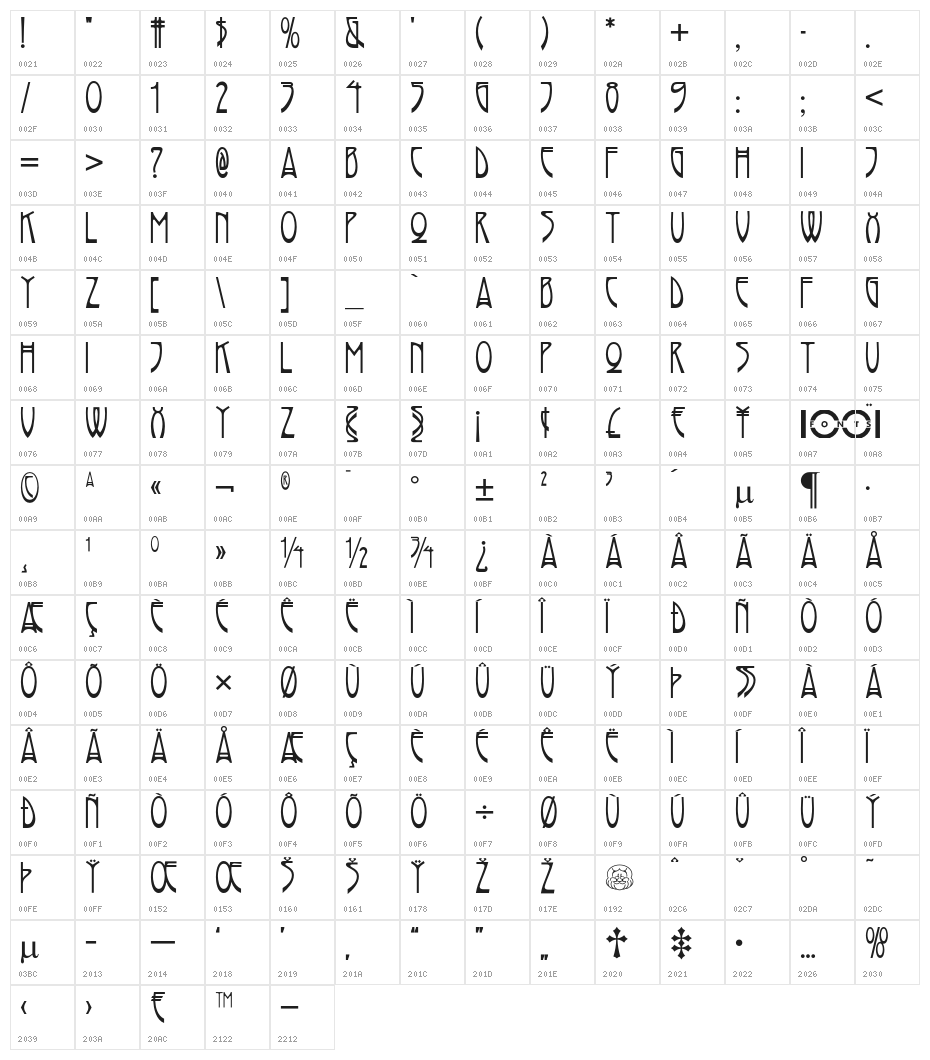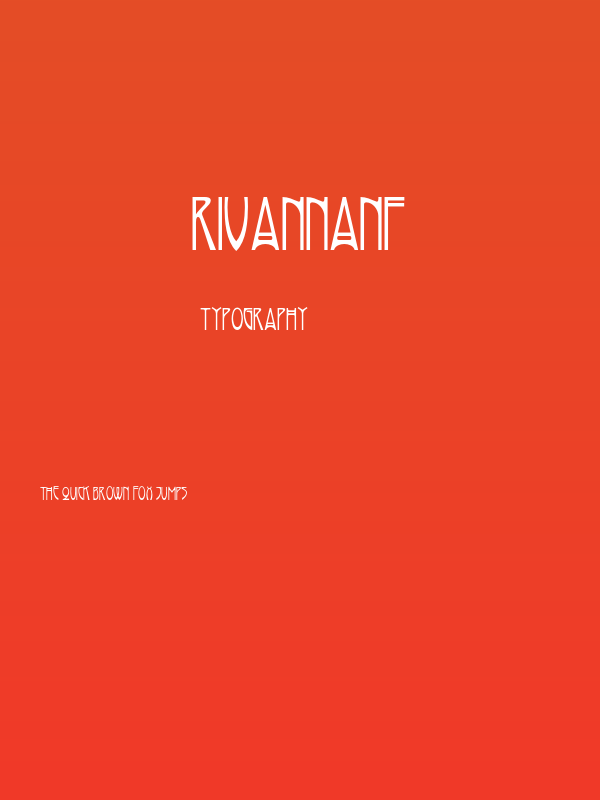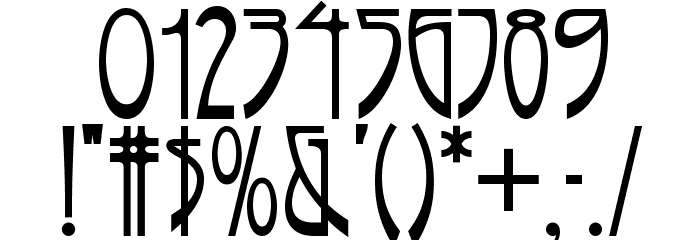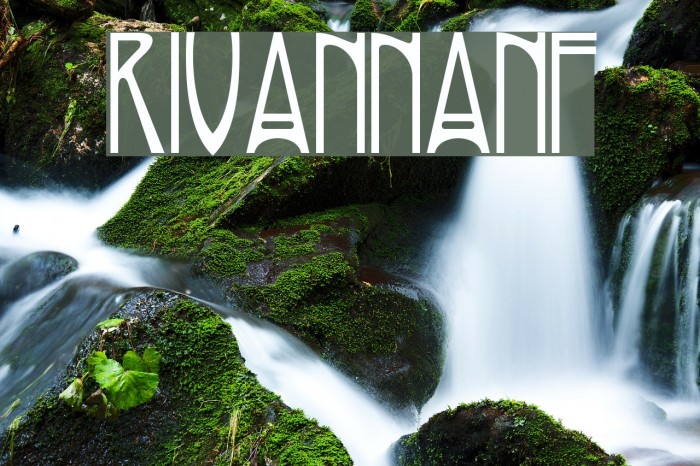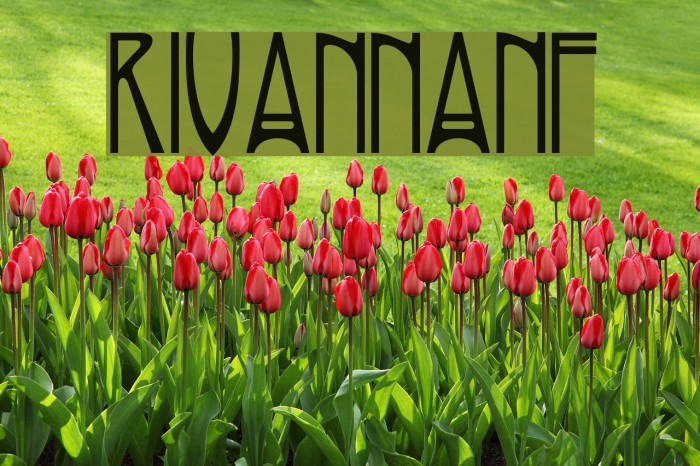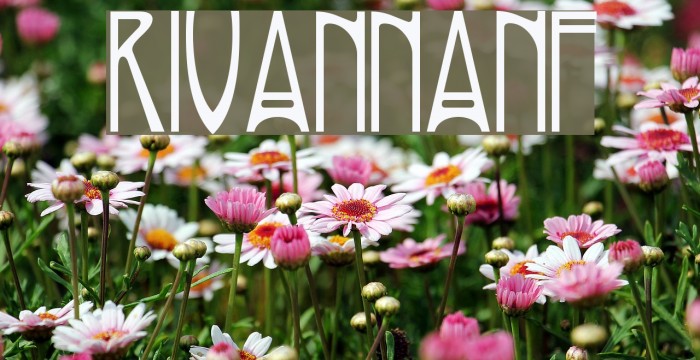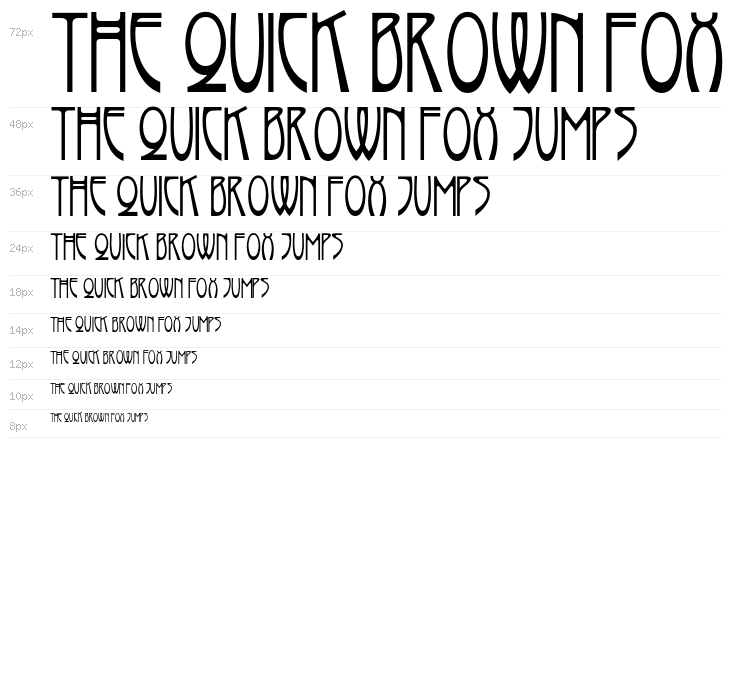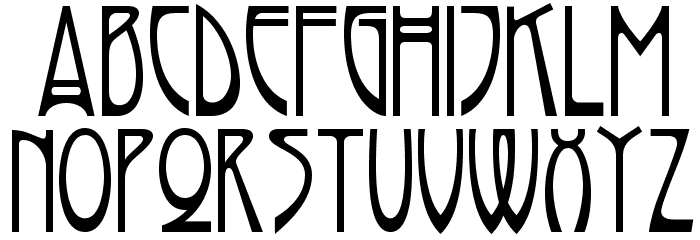
RivannaNF Font
RivannaNF Description
This font features a unique and artistic design with elongated and narrow letterforms. The characters exhibit a blend of geometric and organic shapes, creating a visually intriguing appearance. The uppercase letters have a distinct style with sharp angles and curves, while the lowercase letters maintain a consistent design language. The numerals are stylized to match the overall aesthetic, and the special characters are creatively integrated. This font's design is both modern and decorative, making it suitable for projects that require a bold and distinctive look.